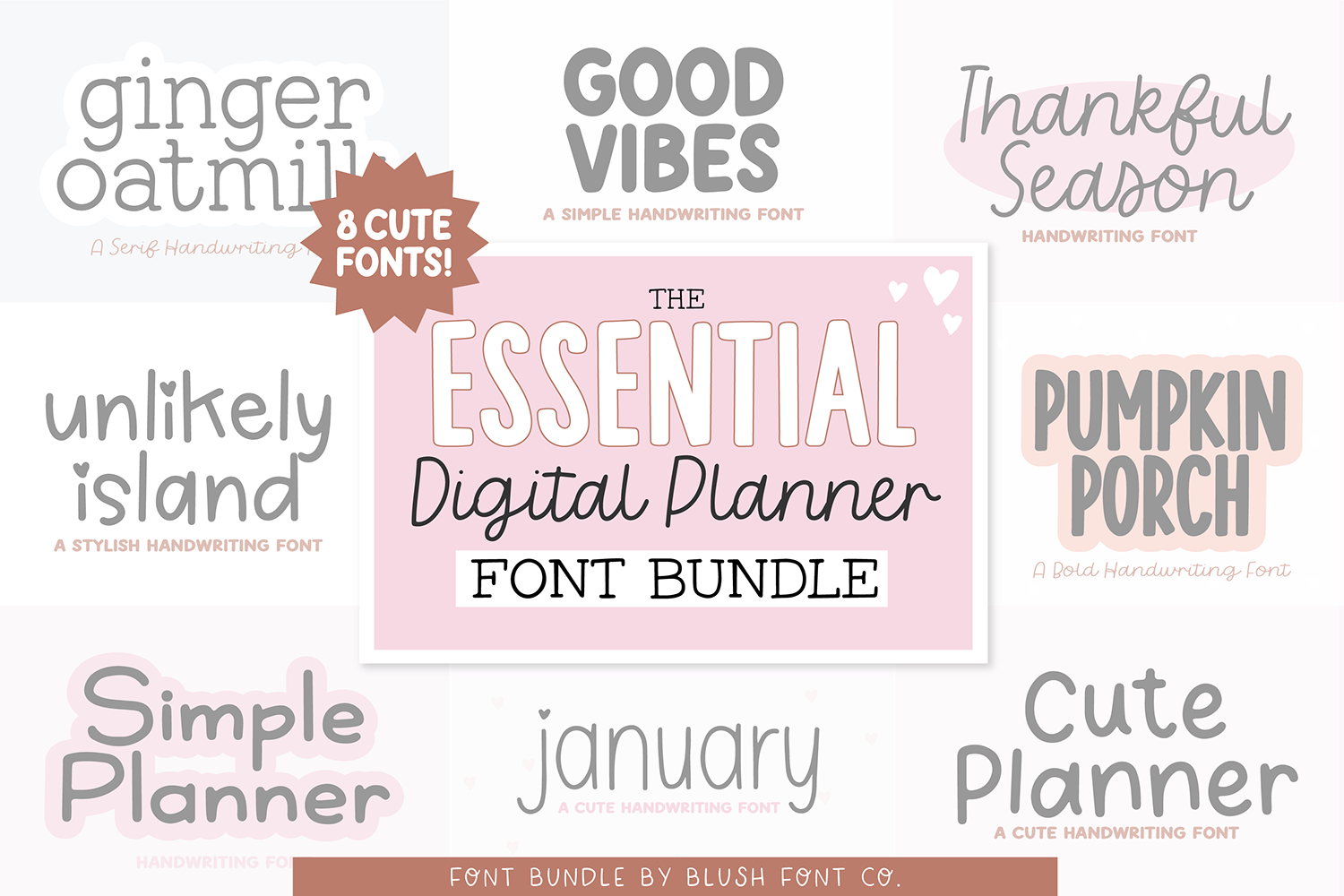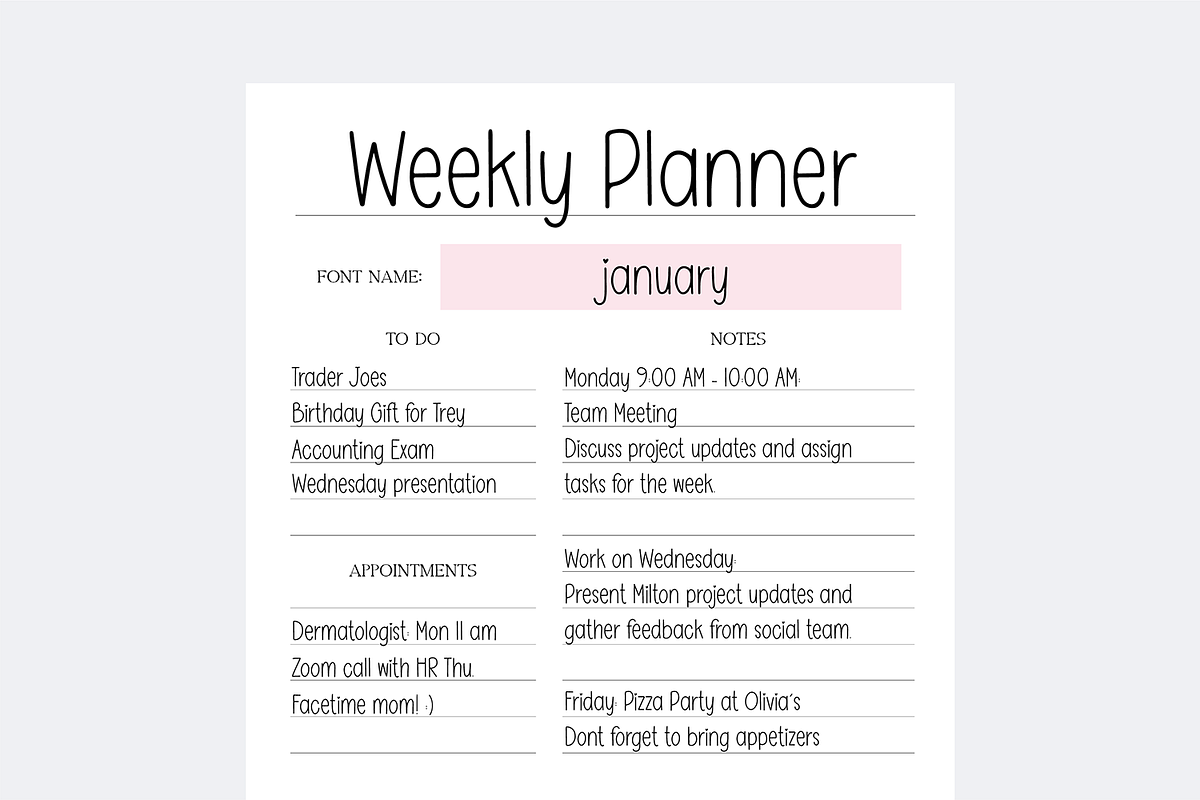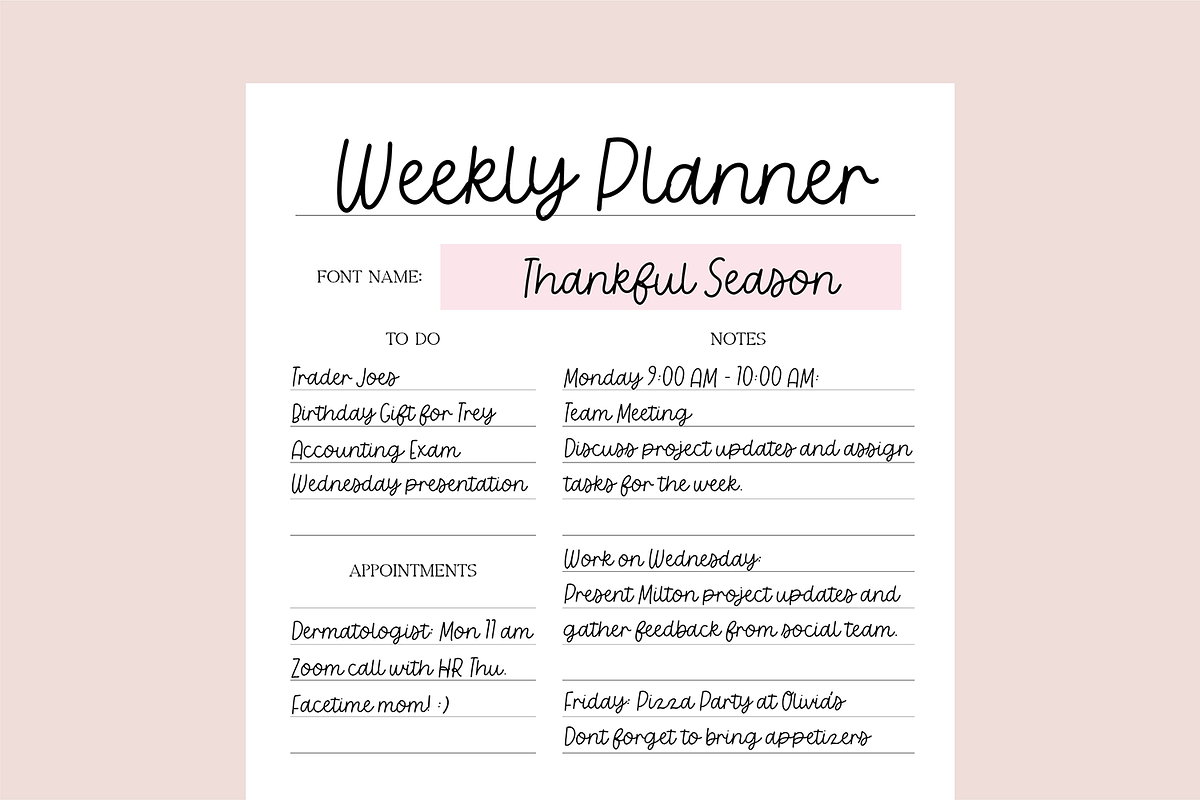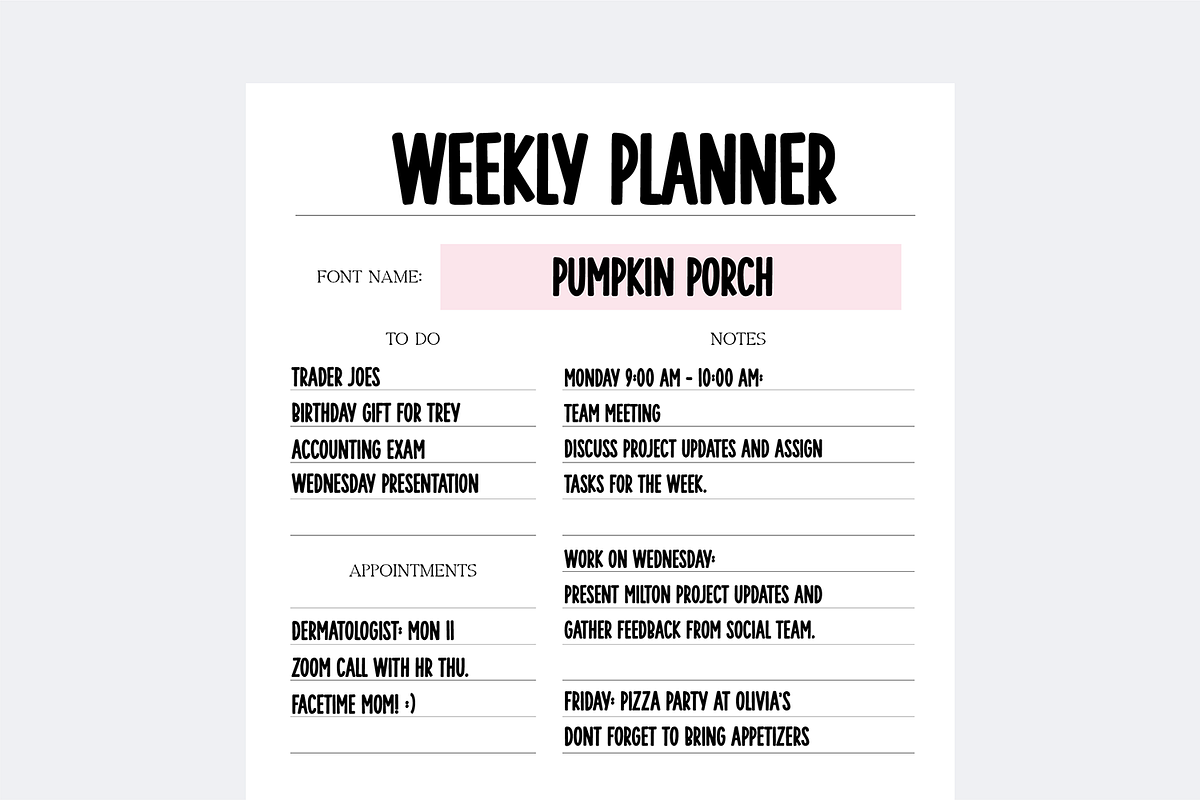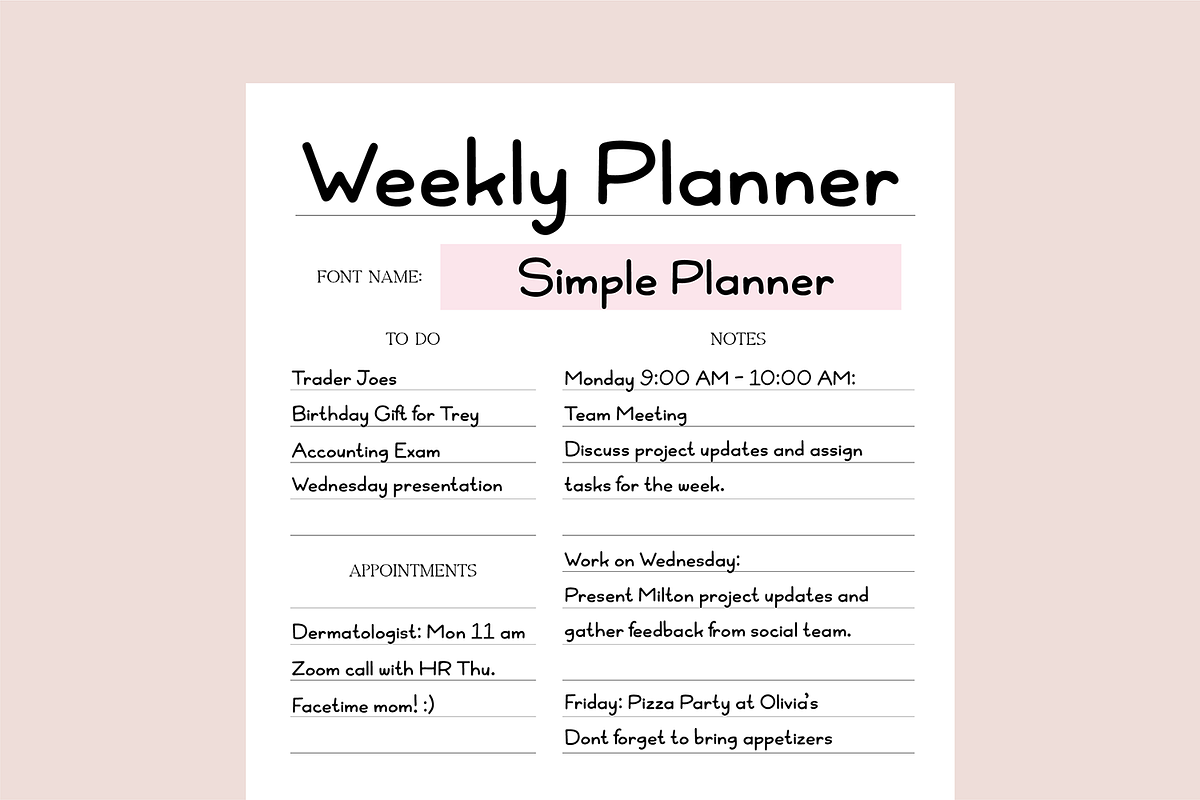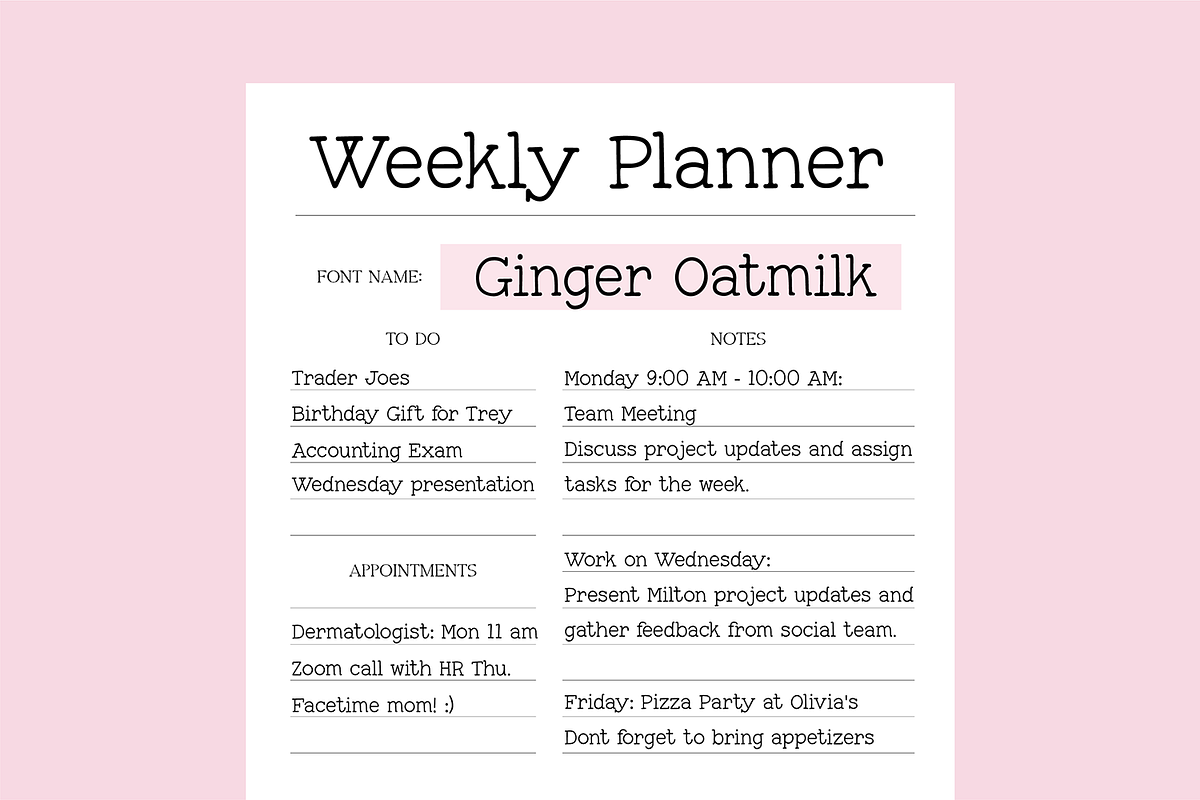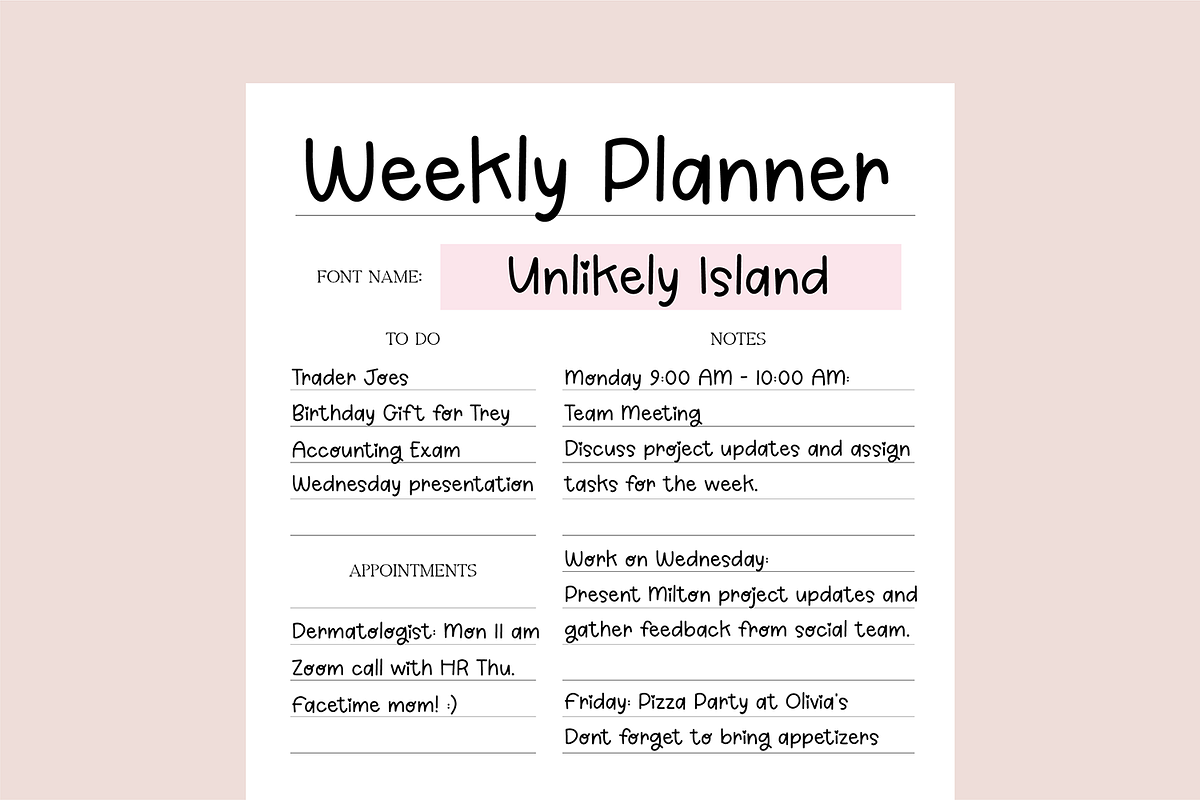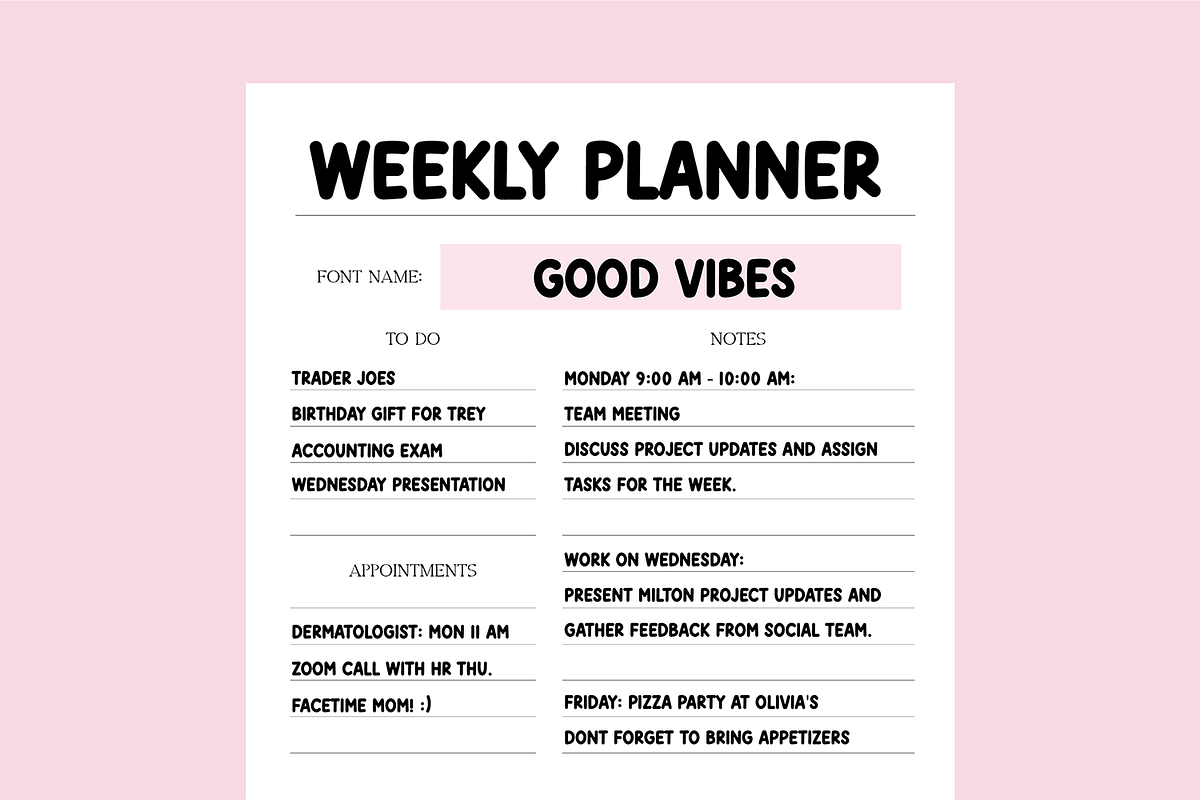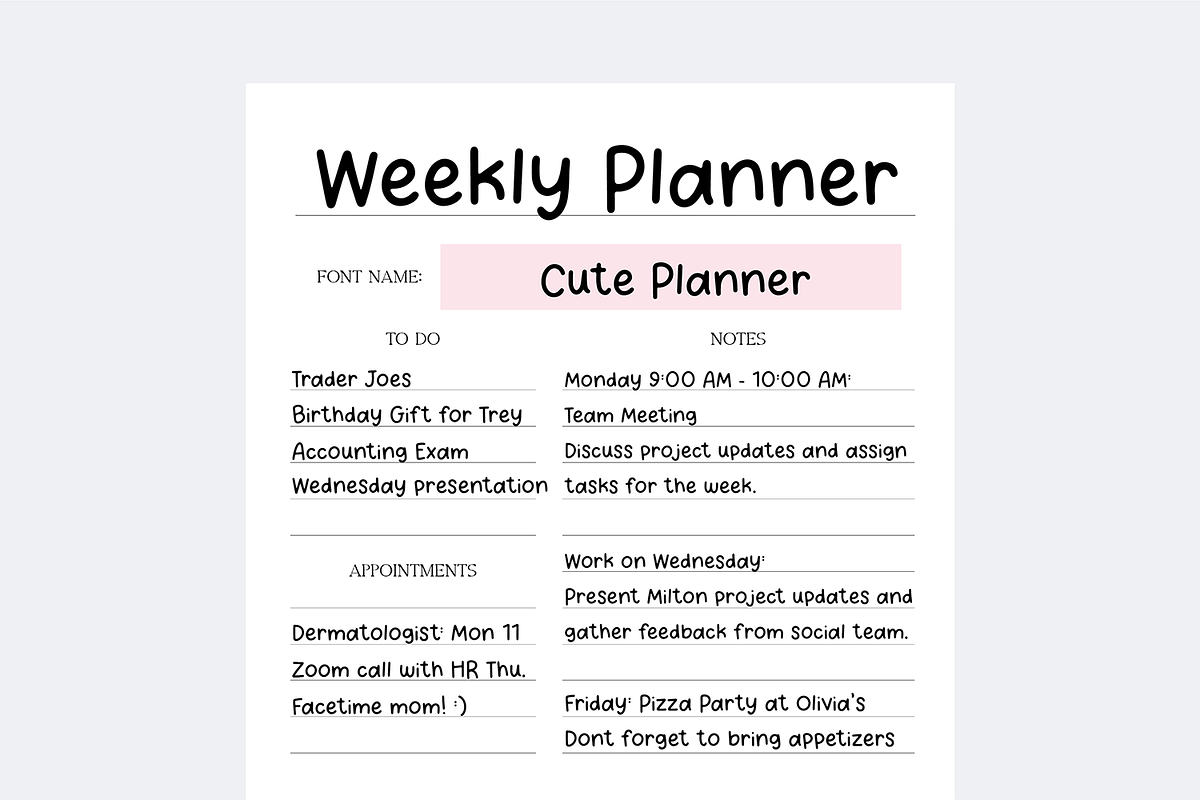
Essential Digital Planner Fonts Bund
The ESSENTIAL Digital Planner Handwriting Font Bundle. 8 cute and clean handwritten fonts made for Goodnotes and digital planners.
Fonts included: Cute Planner Ginger Oatmilk Simple Planner Thankful Season January Pumpkin Porch Good Vibes Unlikely Island